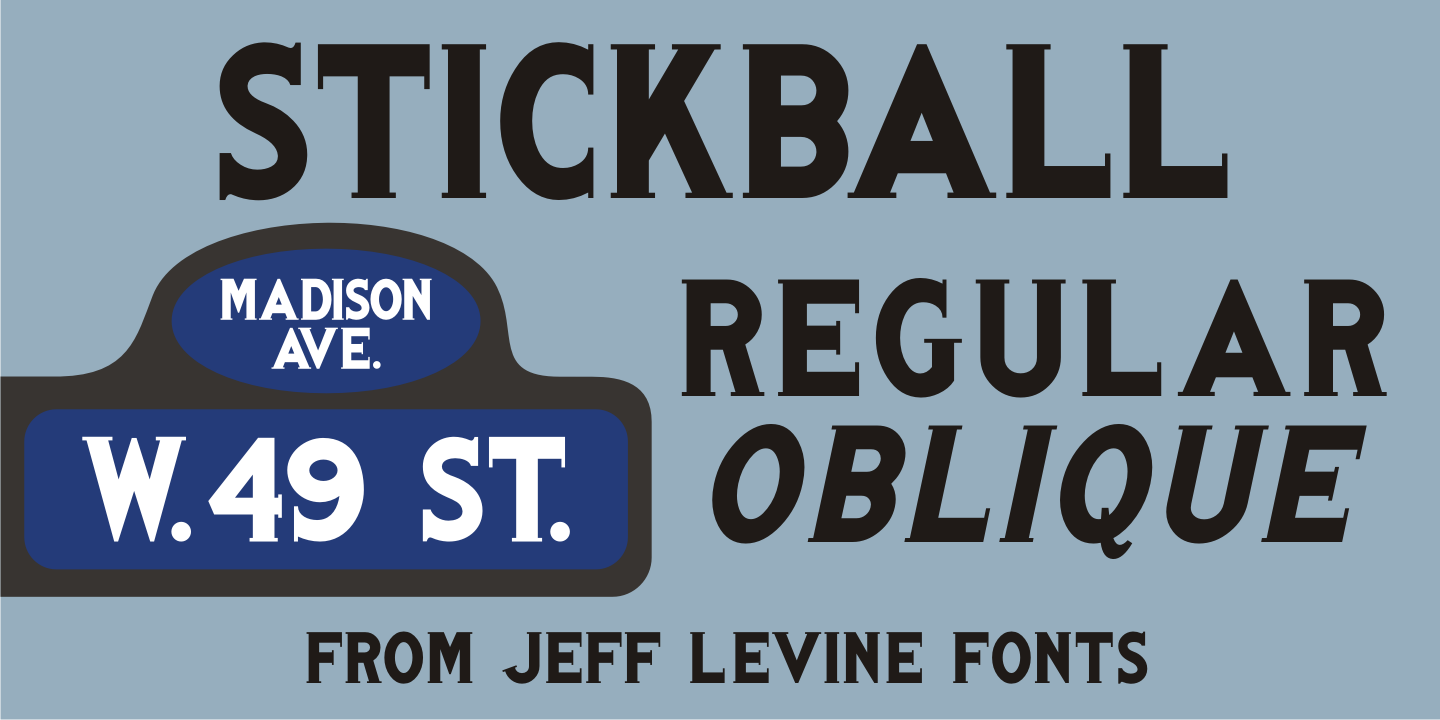
The Stickball JNL Font is an excellent choice for designs that aim for a bold, athletic, and distinctly retro aesthetic, reminiscent of classic sports lettering or vintage team uniforms. Imagine it emblazoned across old-school baseball jerseys, adding a powerful visual punch to sports event posters, or bringing a robust, nostalgic feel to traditional sports branding. It's also perfectly suited for energetic event promotions, vintage-themed advertisements, athletic apparel designs, and any project where you want to convey a sense of strength, camaraderie, and a timeless, winning spirit. Its often sturdy forms and confident presence make it ideal for conveying reliability and a storied past.
What makes the Stickball JNL Font so exciting is its ability to instantly evoke a sense of sporting heritage and classic American pastimes. It frequently features strong, well-defined letterforms that might have subtle serifs or a slightly condensed appearance, reminiscent of old-school team lettering or hand-painted stadium signs. This font has a powerful and self-assured personality that can instantly elevate your design, making it feel both established and remarkably energetic. It’s designed to capture attention with its distinctive charm, ensuring your message is not just seen, but resonates with a sense of enduring strength and authentic character.
The Stickball JNL Font family typically might include a range of weights, from a solid regular to a heavy, commanding bold, providing versatile options for different levels of emphasis. Some families might also offer stylistic alternates or unique ligatures that enhance its traditional or athletic aesthetic. These variations empower designers to create a truly commanding and memorable display, ensuring the Stickball JNL Font Free Download can adapt to a wide array of projects while maintaining its signature, timeless charm.